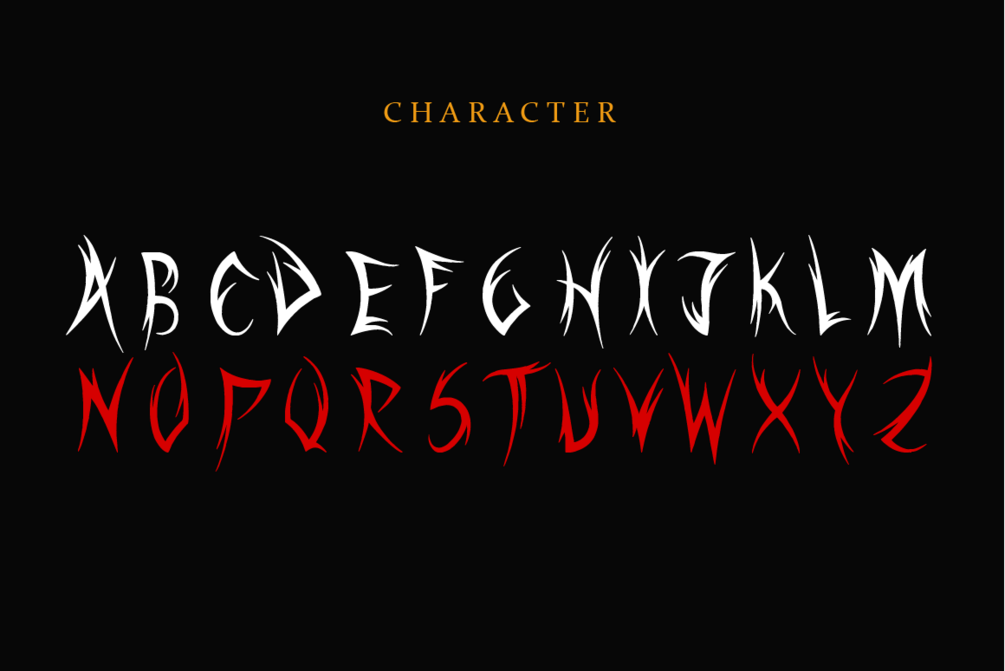
Todorocky
Todorocky Black Metal Font: A bold and intricate typeface inspired by the dark and mystical aesthetics of black metal, featuring sharp edges and ornate details that evoke a sense of ancient runes and occult symbolism.